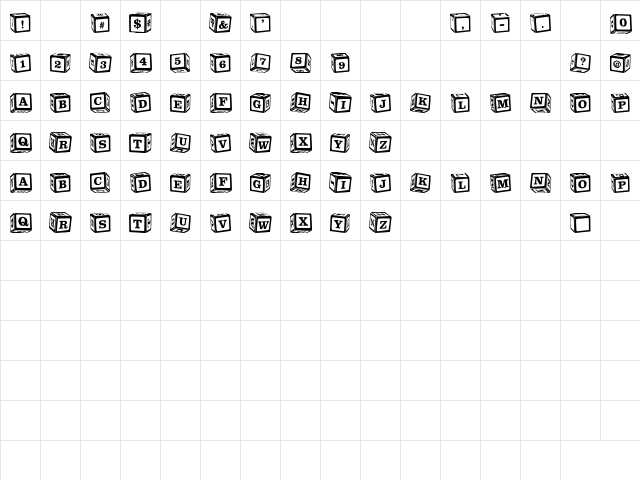
P22 ToyBox Blocks Regular
Design Context for P22 ToyBox Blocks Typeface
P22 ToyBox Blocks is a composed and adaptable typeface that performs quietly and consistently across a wide range of design contexts.
Pro Tip: Use P22 ToyBox Blocks in both headline and body roles to test its range before committing to a single application.